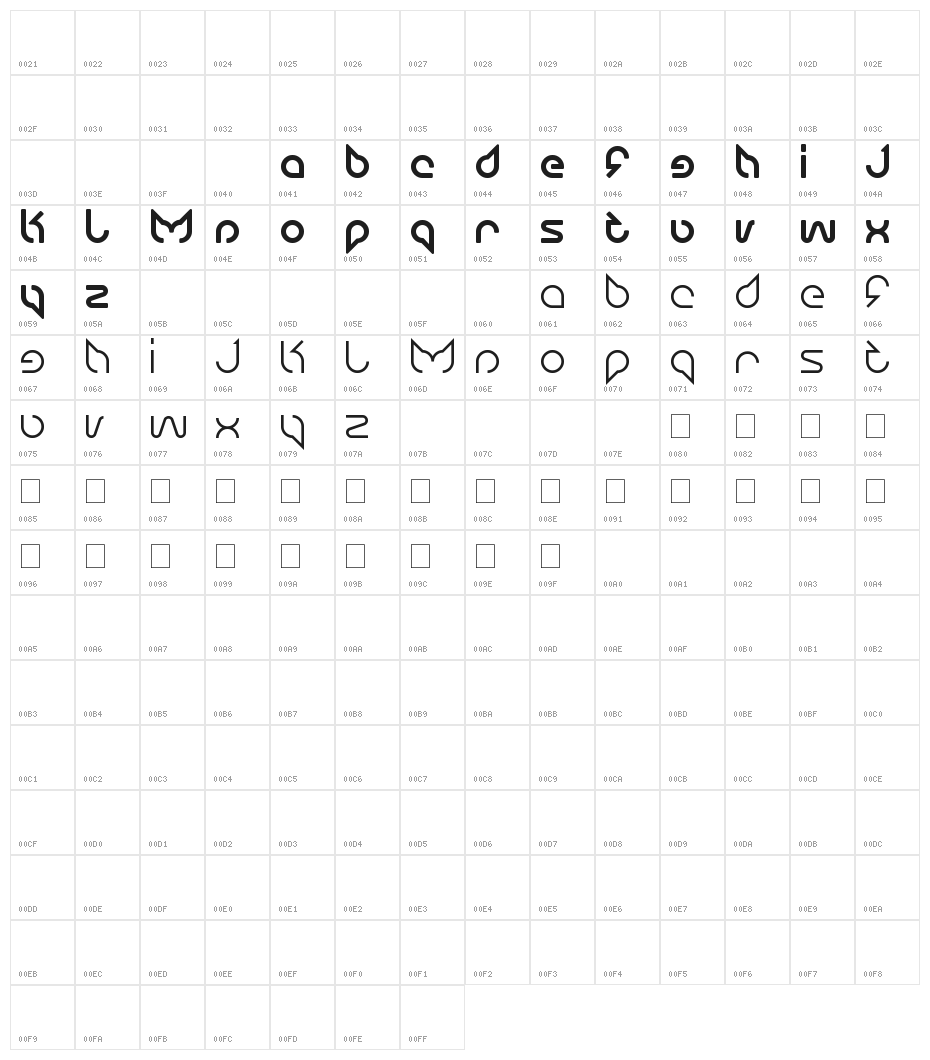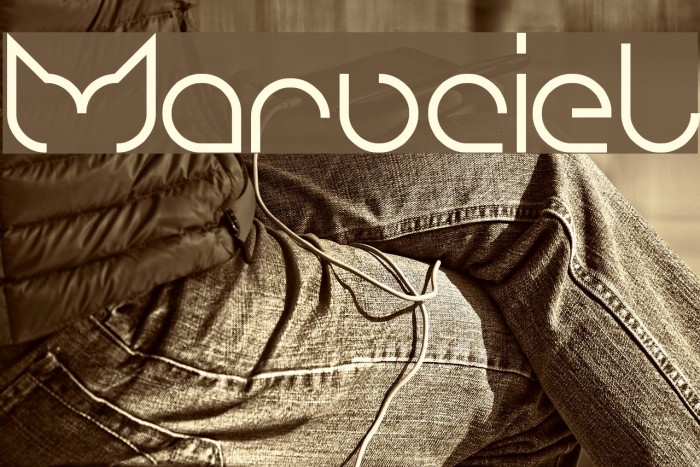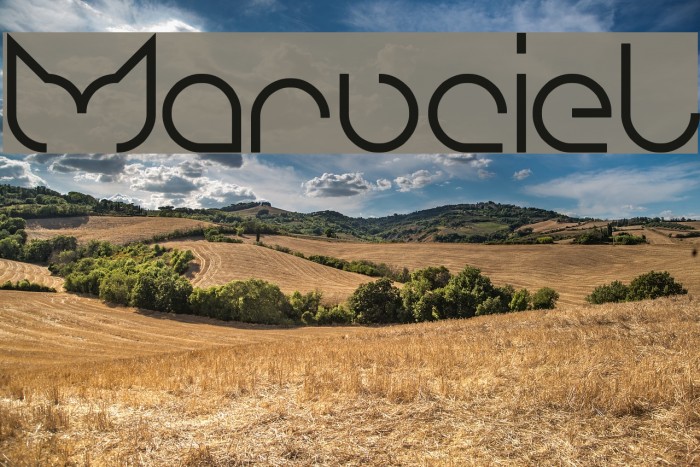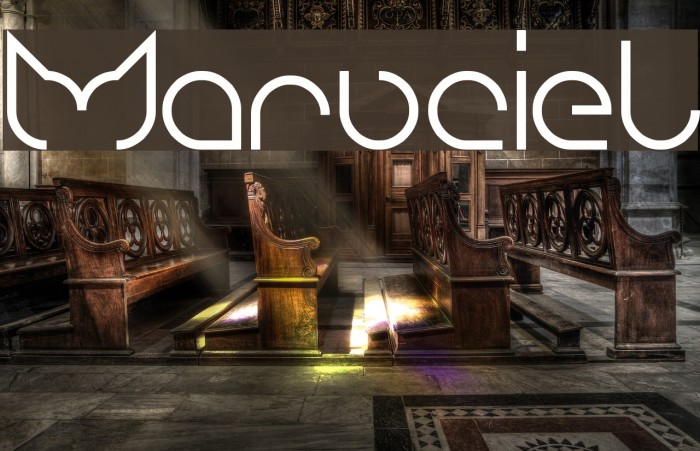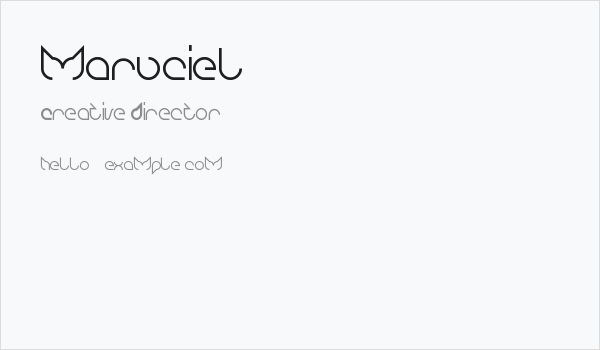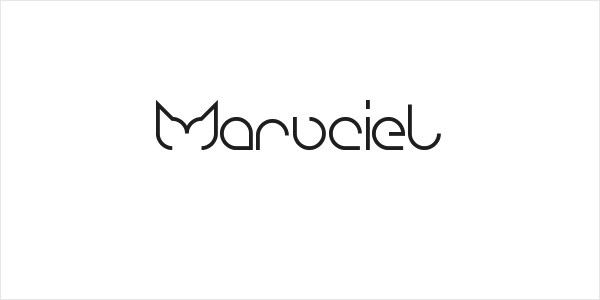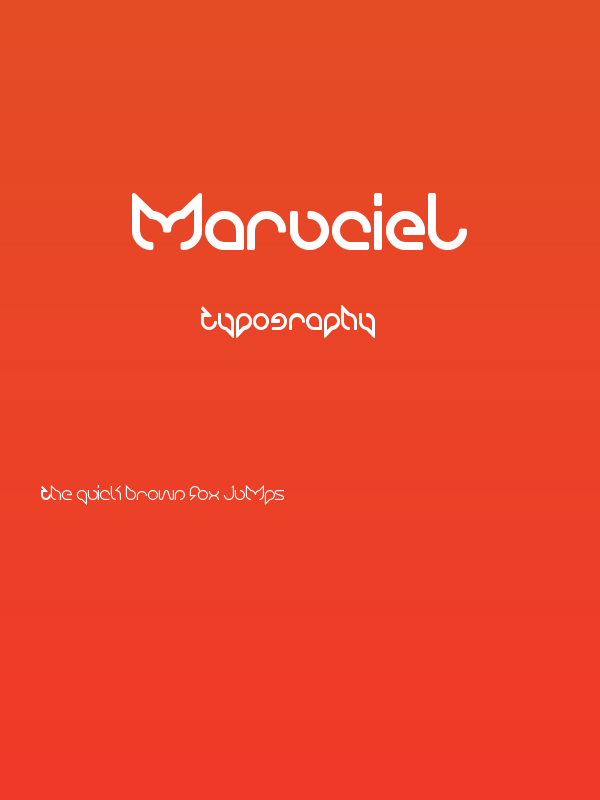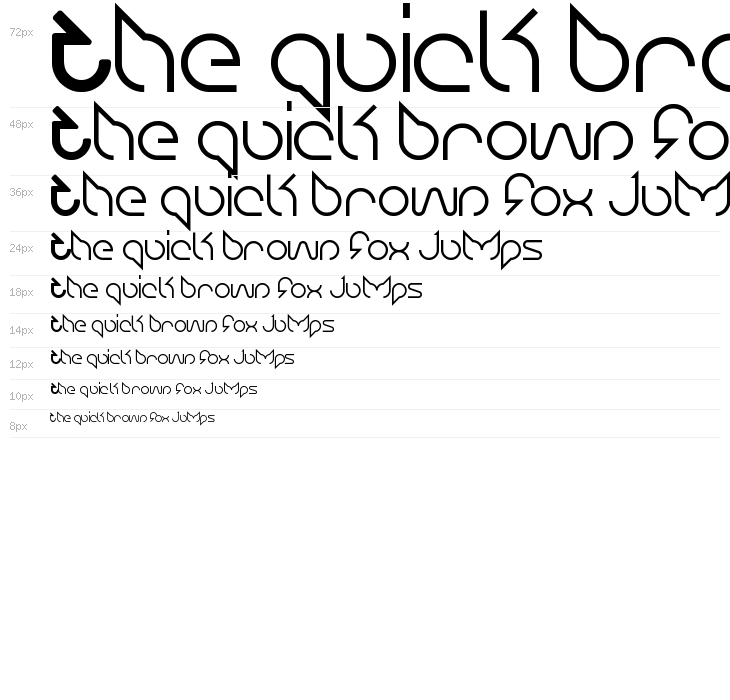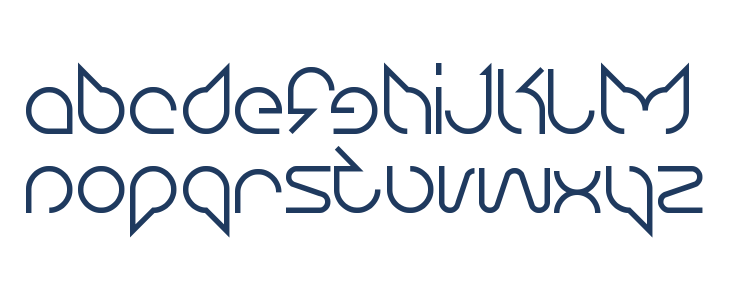
maruciel Font
maruciel Description
This font features a futuristic and geometric design, characterized by its bold and angular shapes. The letters are crafted with a distinct, sharp aesthetic, creating a sense of movement and modernity. The uppercase and lowercase letters share a consistent style, with unique variations that maintain readability while adding a creative flair. The numbers and special characters are designed to match the overall theme, ensuring a cohesive look across all text. This font is ideal for projects that require a modern and edgy appearance, such as technology branding, sci-fi themed designs, or innovative product packaging.
| Proposed Projects | Ideal for technology branding, sci-fi themed designs, innovative product packaging, and modern advertising. |